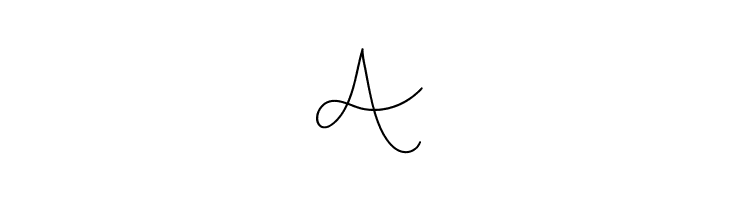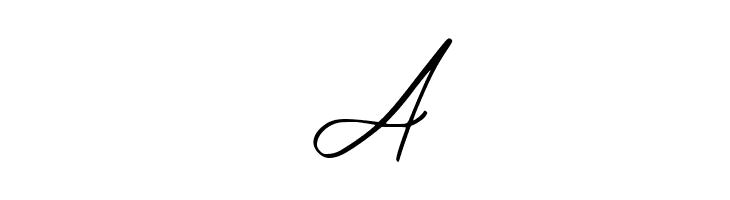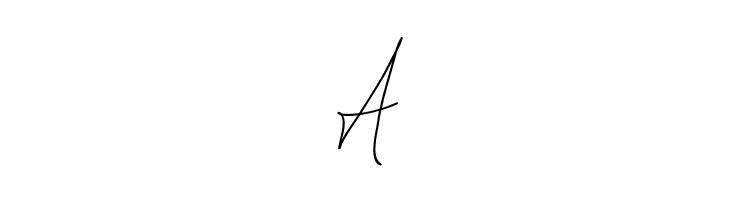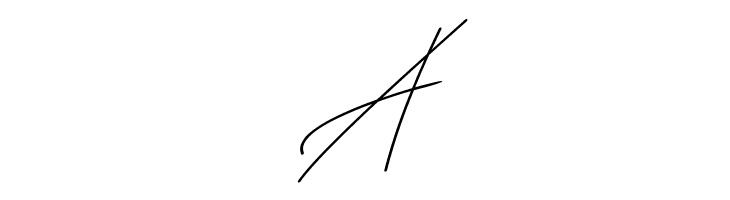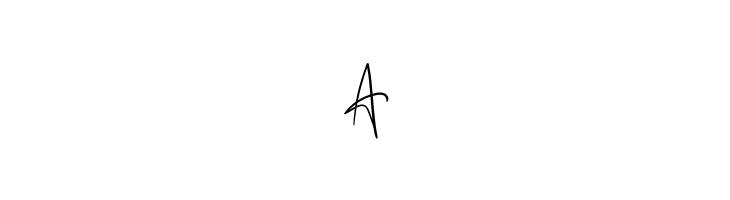
A modern, geometric font with rounded lines and a futuristic style.
A bold, distressed stencil-style font with a rugged, graffiti-like appearance.
A bold, brush-style font with dynamic strokes and artistic flair.
A playful, monoline font with a hand-drawn, casual style.
A playful and elegant script font with flowing, interconnected letters.
A bold, handwritten script font with a dynamic and energetic style.
A bold, energetic script font with flowing, connected strokes.
An elegant script font with flowing curves and intricate swirls.
A graceful script font with flowing curves and high contrast strokes.
A bold, flowing script font with elegant curves and decorative flourishes.
A bold, modern font with rounded edges and a sleek, condensed style.
A lively and elegant script font with fluid, connected letterforms and expressive curves.
A flowing, elegant script font with bold, cursive strokes.
A playful, casual handwritten font with rounded, consistent strokes.
A fluid and elegant handwritten font with a natural cursive style.
A cursive, handwritten font with elegant, flowing strokes.
A dynamic, italic script font with flowing, interconnected strokes and high contrast.
A dynamic and flowing script font with elegant, cursive letterforms.
A flowing, cursive font with elegant loops and artistic flair.
An elegant script font with flowing, cursive style and intricate loops.
A playful and elegant script font with flowing, cursive letters.
A playful and whimsical font with bold, quirky letterforms.
A lively handwritten font with flowing, interconnected strokes and playful elegance.
A whimsical, flowing handwritten font with elegant, interconnected strokes.
An elegant, flowing script font with a natural handwriting style.
An elegant Arabic script font with traditional calligraphic style.
A modern, elegant script font with flowing, cursive lines and graceful loops.
A dynamic, cursive script font with a flowing, handwritten style.
A playful, handwritten font with a casual and whimsical style.
An elegant script font with fluid, cursive strokes and high contrast.
An elegant script font with flowing, cursive letterforms and refined flourishes.
A bold, expressive handwritten font with fluid strokes and a playful style.
A bold, expressive handwritten font with fluid, dynamic strokes.
Playful handwritten script font.
A fluid, cursive font with a personal, handwritten style.